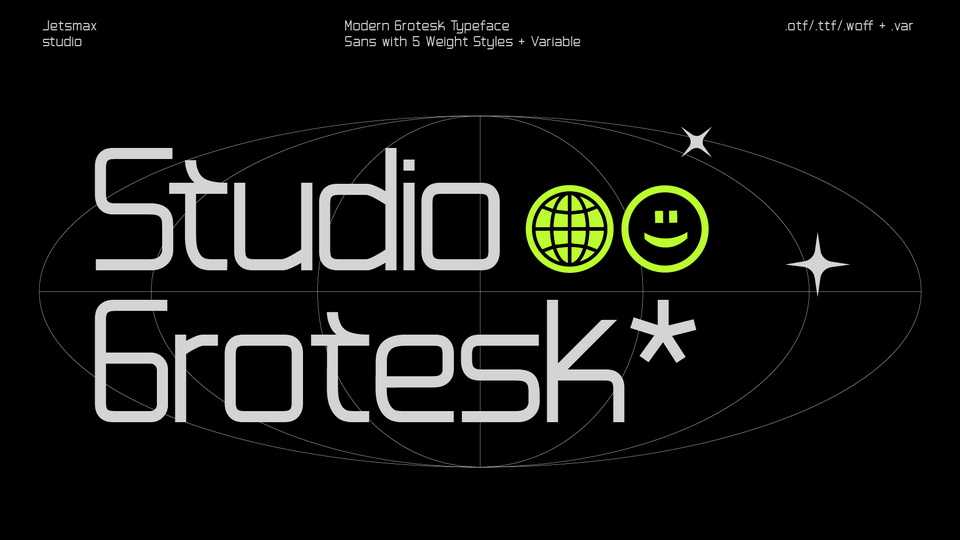
Download Studio Grotesk typeface, a modern sans font family with a futuristic touch. Studio Grotesk is a multi-purpose typeface that will grab the reader’s attention with its stylish and neat design.
Designer: Jetsmax Studio